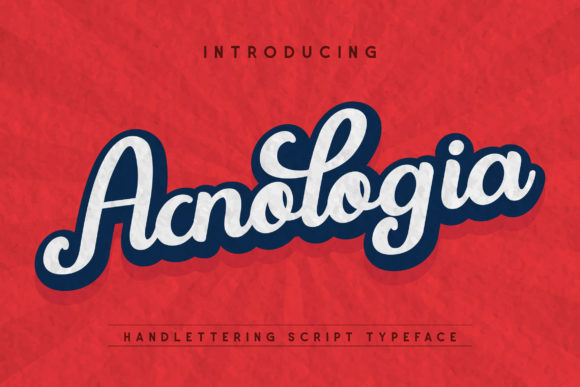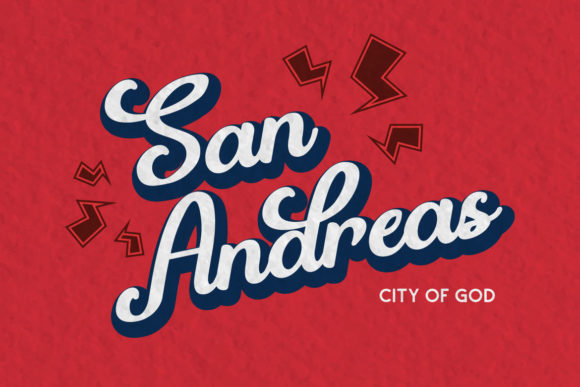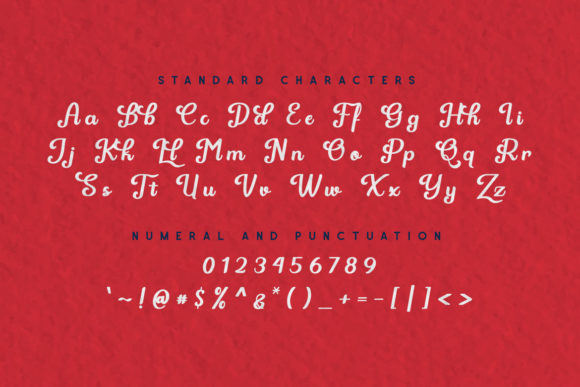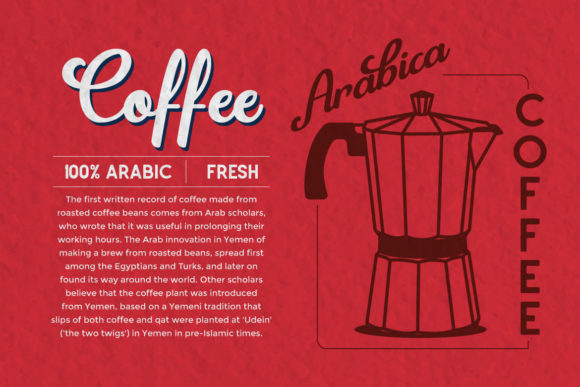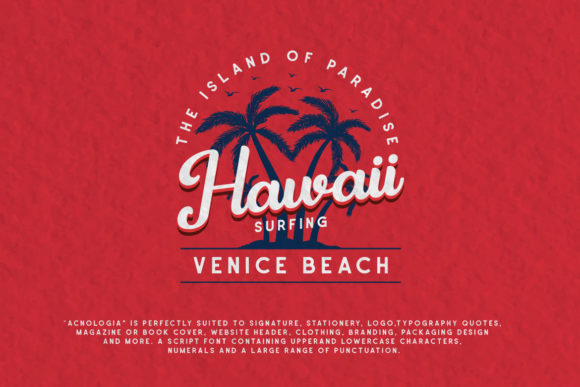
HomeScript FontsAcnologia Font Script Fonts Acnologia Font FacebookXPinterestWhatsApp Acnologia Font Poster 2 Acnologia Font Poster 3 Acnologia Font Poster 4 Acnologia Font Poster 5 About Acnologia Font Acnogolia is a unique script font. It has a retro look and feel that will take your projects to the next level! DOWNLOAD ON CREATIVE FABRICAThis font is sold and delivered by Creative Fabrica. Font Canyon may earn a commission if you buy through this link. People also explored Kembara Cinta Outline Budhayanti Font Photorealistic Book Cover Mock-Up Villa Font Watercolor Font Australia Font Kelium Font Laurance Font Kanada Font 359 0 TagsAcnologia Font Previous articleSpring Park FontNext articleCurly Windy Font LEAVE A REPLY Cancel reply Comment: Please enter your comment! Name:* Please enter your name here Email:* You have entered an incorrect email address! Please enter your email address here Website: Save my name, email, and website in this browser for the next time I comment. Personal Use Free Huntry Personal Use Free Read more about this font Septhine Personal Use Free Read more about this font Bridgetown Font Personal Use Free Read more about this font Gonestones Personal Use Free Read more about this font BLOG Transform Your Website: Elevate Your Typography with 7 Best Web Font Generators Are you ready to transform your website's typography from ordinary to extraordinary? Great! Today, we're diving into the world of web font generators, which... Top 7 Google Fonts Alternatives for Faster and Privacy-Friendly Web Design (2025) How to Cut Any Font on Cricut: Convert a Font to SVG (Free) To increase your work productivity, choose the most readable fonts.